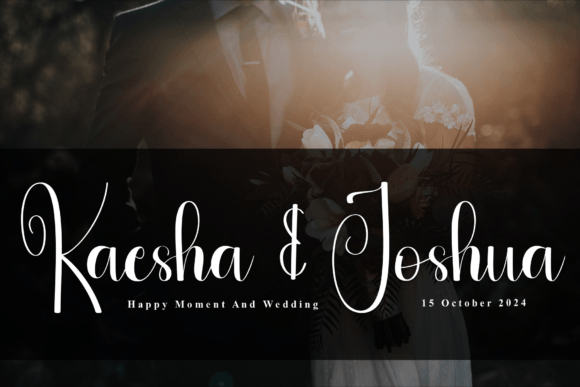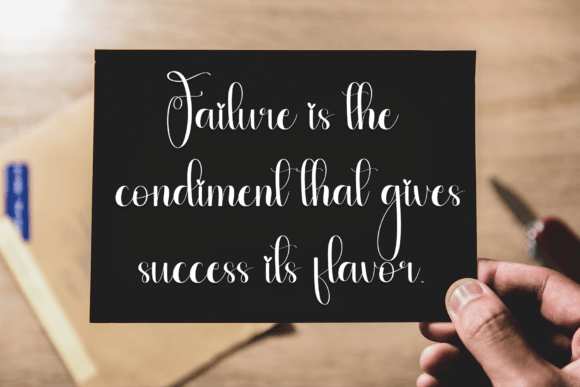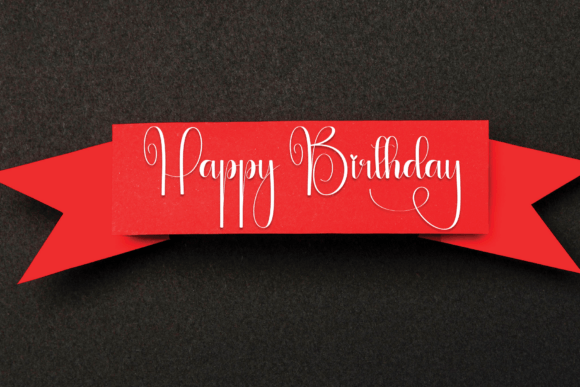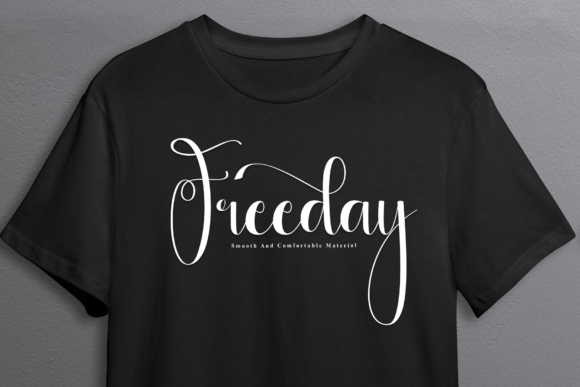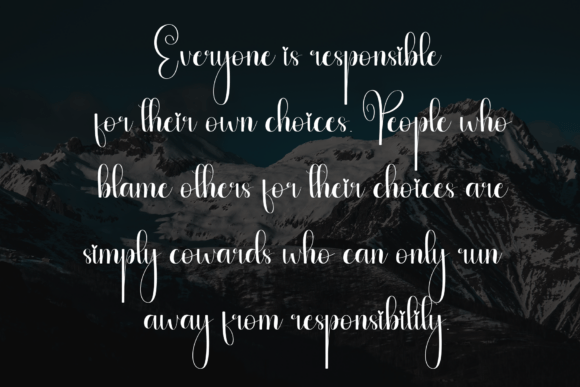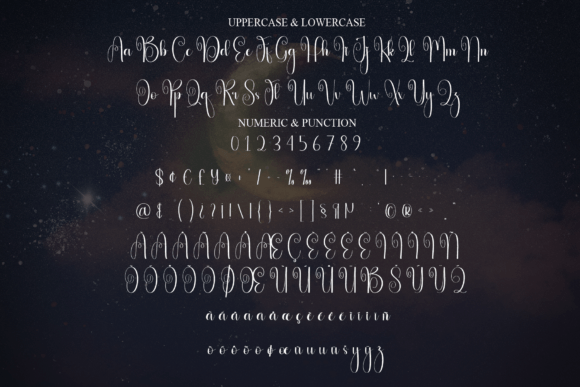
Introducing Goodnight Font: The Cozy and Relaxed Handwritten Font for Your Creative Projects
Are you looking for a font that can add a touch of warmth and coziness to your designs? Look no further than Goodnight Font, a charming handwritten font that captures the feeling of a relaxing evening. With its playful letters and soft curves, Goodnight Font is perfect for personal notes, invitations, and any other project that needs a friendly and approachable vibe.
The Unique Style of Goodnight Font
Goodnight Font has a unique style that sets it apart from other handwritten fonts. Its letters have a warm, friendly vibe that feels like a gentle wave goodnight. The font’s soft curves and casual look make it perfect for creating a cozy and relaxed atmosphere in your designs. Whether you’re working on a personal project or a professional one, Goodnight Font is sure to bring a touch of warmth and personality to your work.
Perfect for Personal and Creative Projects
Goodnight Font is ideal for a wide range of creative projects, from personal notes and invitations to craft projects and DIY tutorials. Its playful and friendly vibe makes it perfect for:
- Personal notes and letters
- Invitations and party decorations
- Craft projects and DIY tutorials
- Blog posts and social media graphics
Why Choose Goodnight Font?
There are many reasons why Goodnight Font is a great choice for your creative projects. Here are just a few:
- Unique and eye-catching: Goodnight Font has a unique style that will make your designs stand out from the crowd.
- Warm and friendly: The font’s playful letters have a warm, friendly vibe that’s perfect for creating a cozy and relaxed atmosphere.
- Versatile: Goodnight Font is suitable for a wide range of creative projects, from personal notes to professional branding.
- Easy to read: The font is clear and easy to read, making it perfect for body text and headings.
Tips for Using Goodnight Font
Here are some tips for getting the most out of Goodnight Font:
- Use it for headings and titles: Goodnight Font is perfect for headings and titles, where its playful and friendly vibe can really shine.
- Pair it with other fonts: Goodnight Font pairs well with other fonts, such as sans-serif fonts for body text.
- Experiment with colors: Goodnight Font looks great in a range of colors, from bright and bold to soft and pastel.
- Use it for personal projects: Goodnight Font is perfect for personal projects, such as crafting and DIY tutorials.
Goodnight Font is a charming handwritten font that’s perfect for adding a touch of warmth and coziness to your designs. With its unique style, soft curves, and casual look, it’s ideal for personal notes, invitations, and any other project that needs a friendly and approachable vibe. Whether you’re a designer, crafter, or DIY enthusiast, Goodnight Font is sure to become a favorite in your creative toolkit.